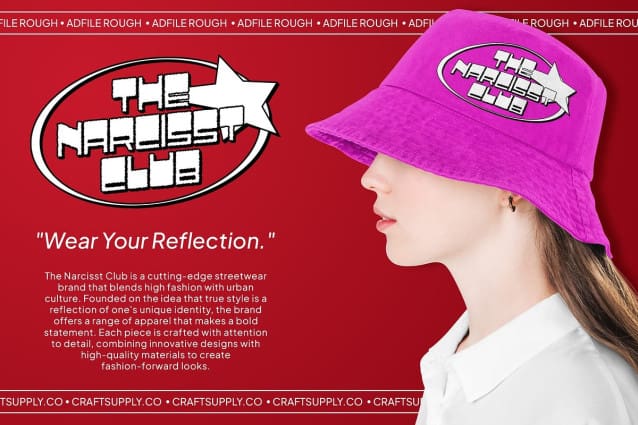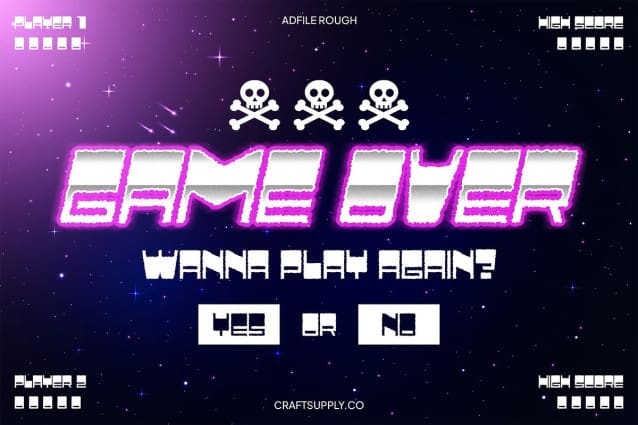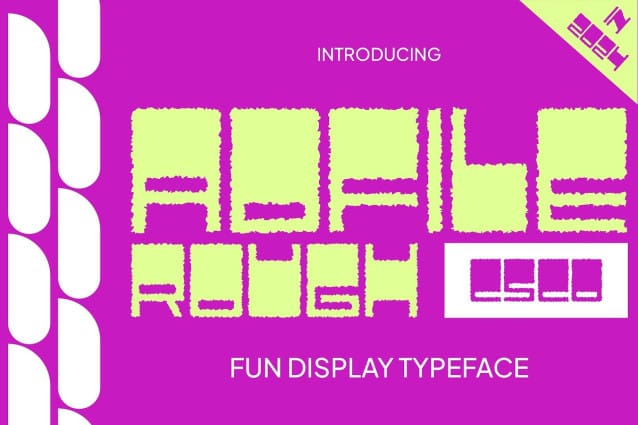
Adfile Rough Font
Adfile Rough Font is a display sans serif font that boasts a bold design exuding a funky and retro vibe. The font’s strong and distinctive letterforms bring a playful and nostalgic touch to any project, making it an excellent choice for designs that need to stand out and capture attention.
Enhanced with Rough Texture The rough texture of Adfile Rough adds a unique charm, enhancing its retro appeal and giving it a distinctive character. This textured effect not only adds depth and visual interest but also evokes a sense of authenticity and vintage style, perfect for designs that aim to convey a sense of history and personality.
Perfect for Nostalgic and Playful Designs Ideal for projects that aim to make a memorable impact, Adfile Rough is perfect for branding, posters, and creative graphics that require a playful and unique charm. Its bold and funky style makes it versatile for various applications, ensuring your designs capture attention and leave a lasting impression.
Capture Attention with Unique Charm Whether you’re working on a nostalgic branding project, a retro-themed poster, or any design that requires a touch of playful elegance, Adfile Rough delivers the perfect balance of boldness and retro charm. Its unique texture and strong letterforms make it a standout choice for designers looking to create captivating and memorable visuals.